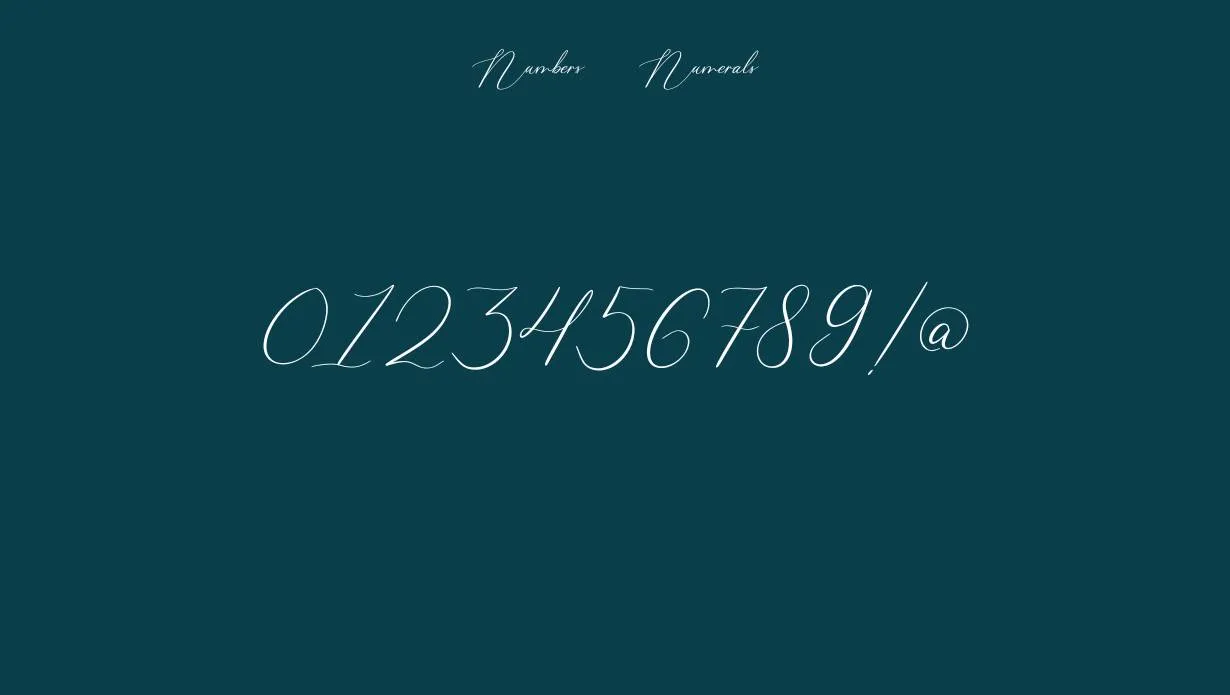
Calligrapher Font is a modern and unique typeface. The characters of this typeface have a curly, non-monospaced, and elegant appearance. This typeface belongs to the calligraphy font family.
This typeface is similar to the magical font which is a suitable option as an alternative. You can utilize this stylish typeface for designing creative fashion magazine headlines, wedding invitation cards, and art design projects.
- Calligrapher Regular
| Name | Calligrapher Font |
| Designer | Essentials Studio |
| Style | Calligraphy |